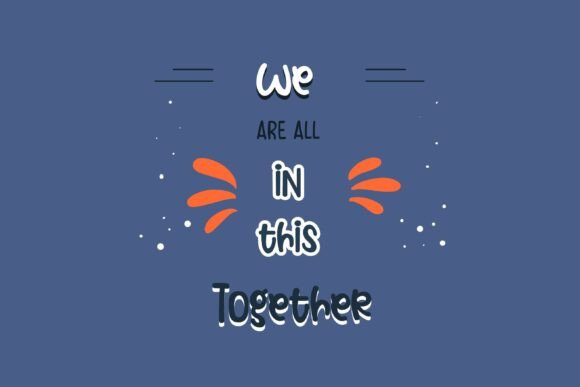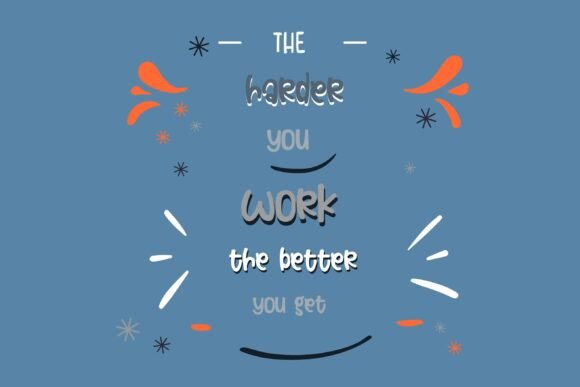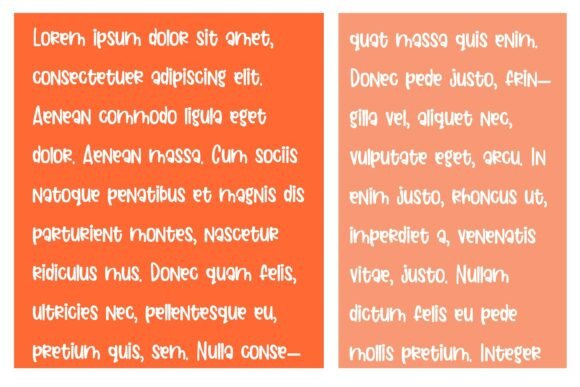
Dunkin Font
This hand-crafted font is a whimsical sans serif with a bit of a youthful feel.A hand-crafted font is a font that is designed to look like it was written by hand. It is often used for invitations, greeting cards, and other items. Handwritten fonts can be either formal or informal, and they can be used for a variety of purposes.